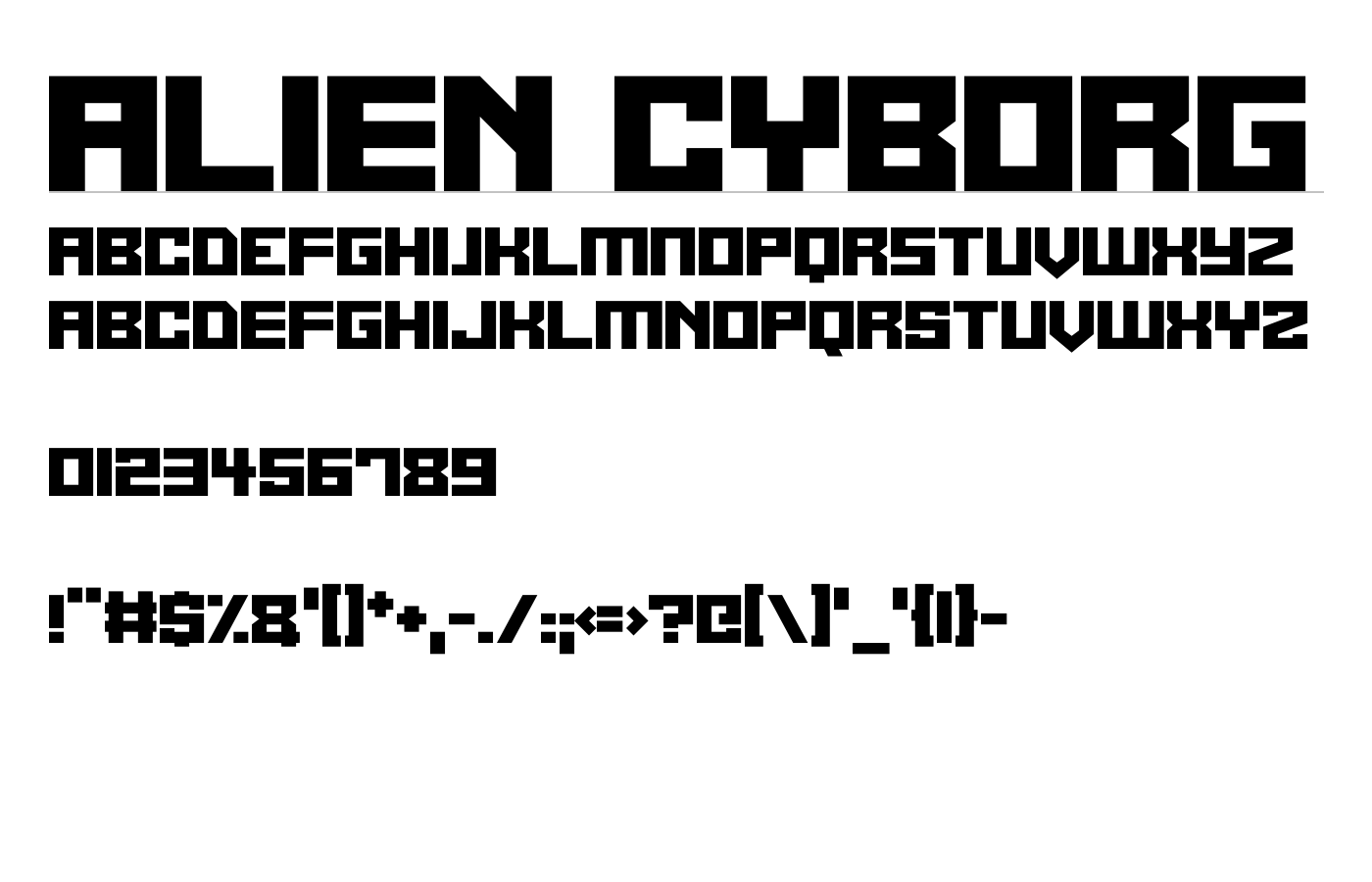
Alien Cyborg is a bold, geometric sans serif font with a futuristic, tech-inspired design featuring strong, blocky letterforms with sharp angles and consistent stroke weight. This all-caps typeface conveys a modern, sci-fi vibe that works well for headlines, logos, and branding in technology, gaming, and digital media, offering a striking and impactful presence. Its unique, mechanical shapes make it ideal for projects seeking a bold, high-tech aesthetic.
Alien Cyborg Font
About Alien Cyborg Font